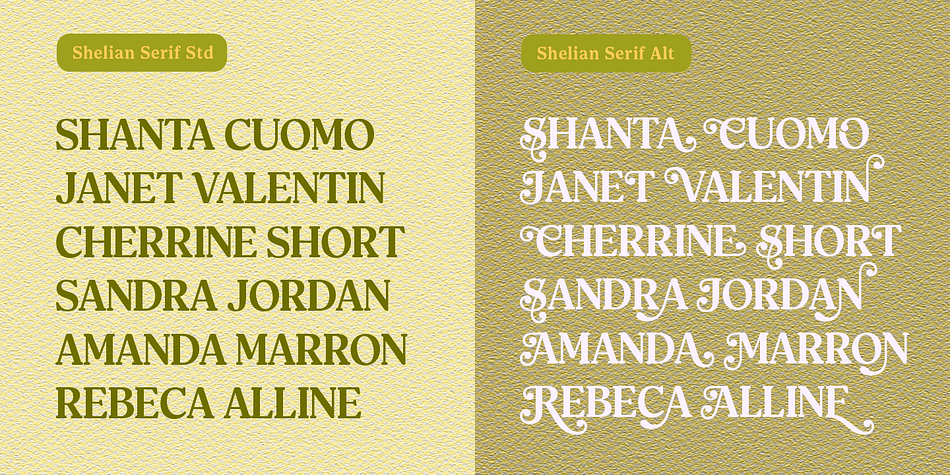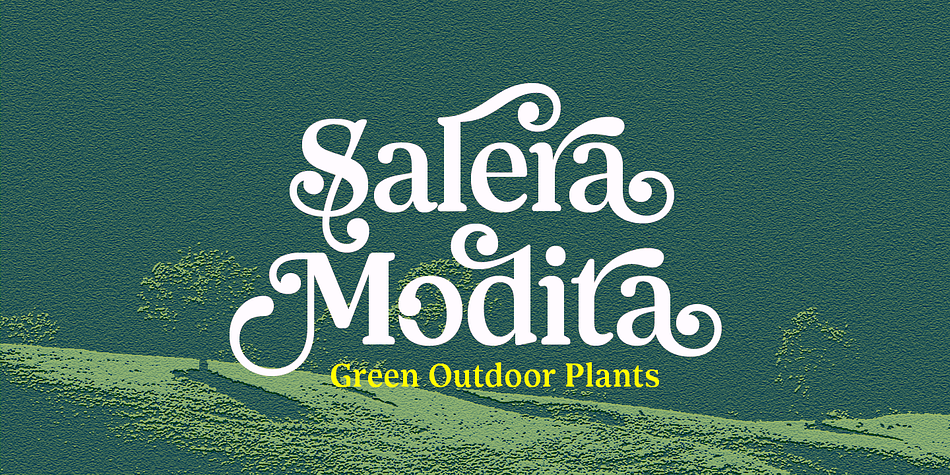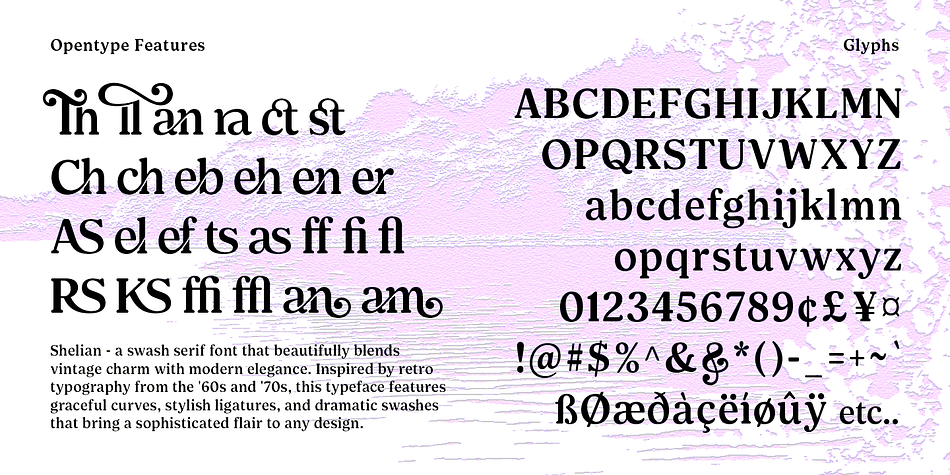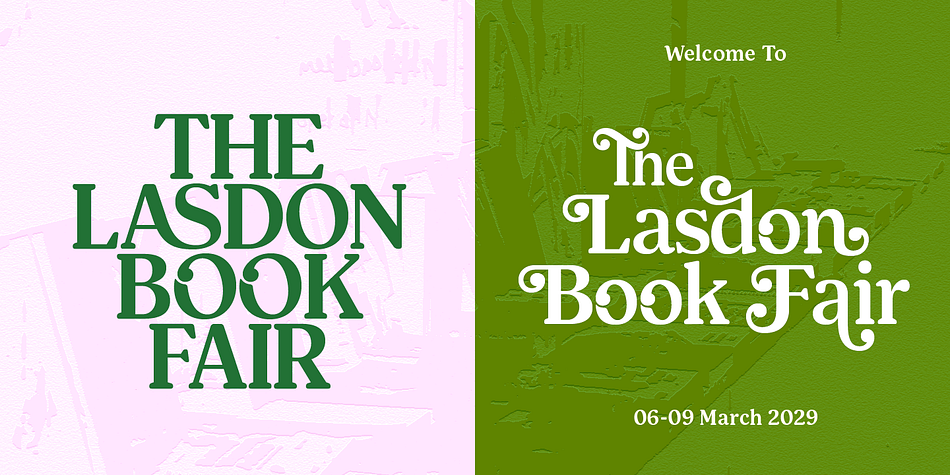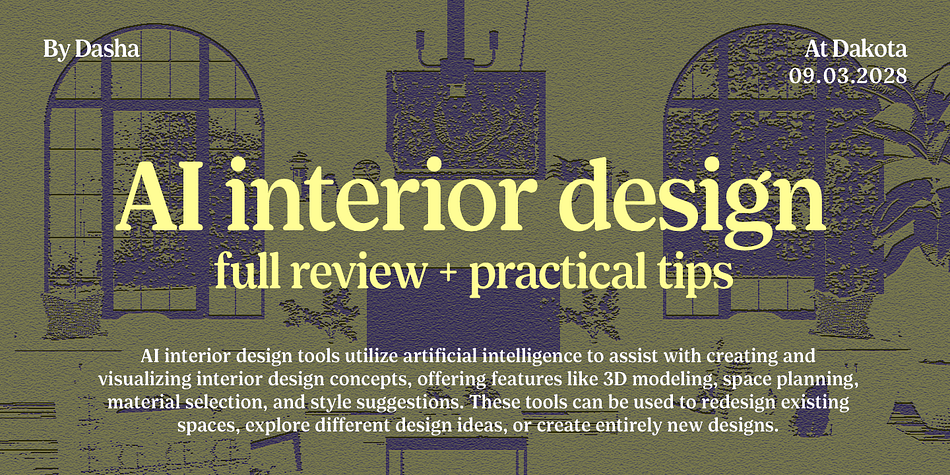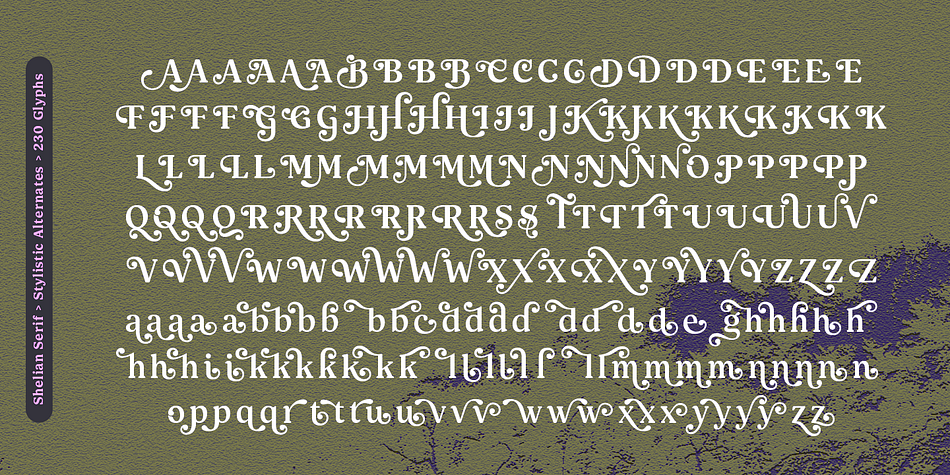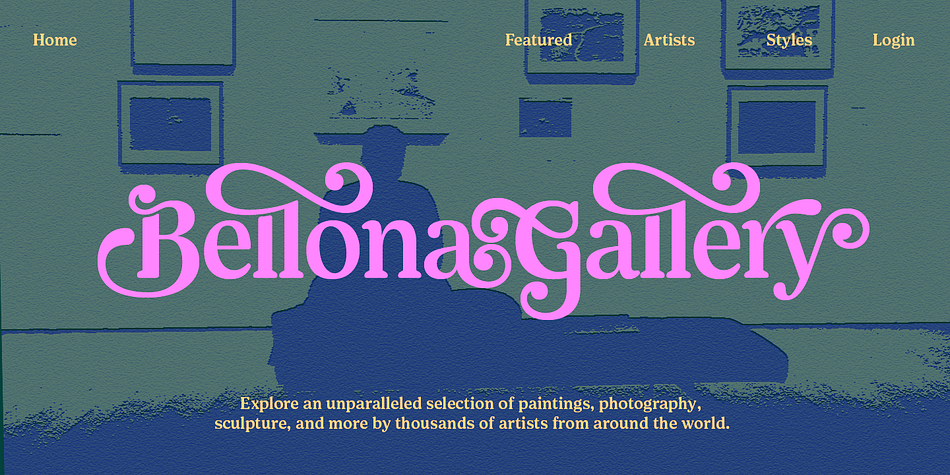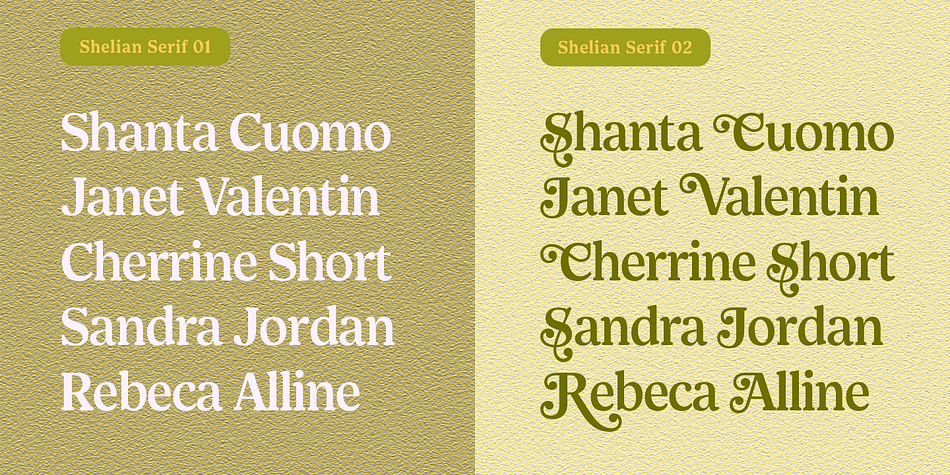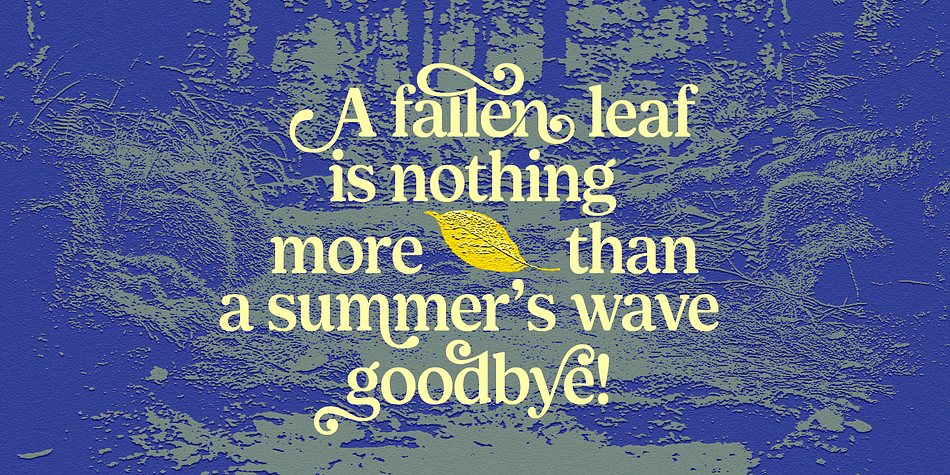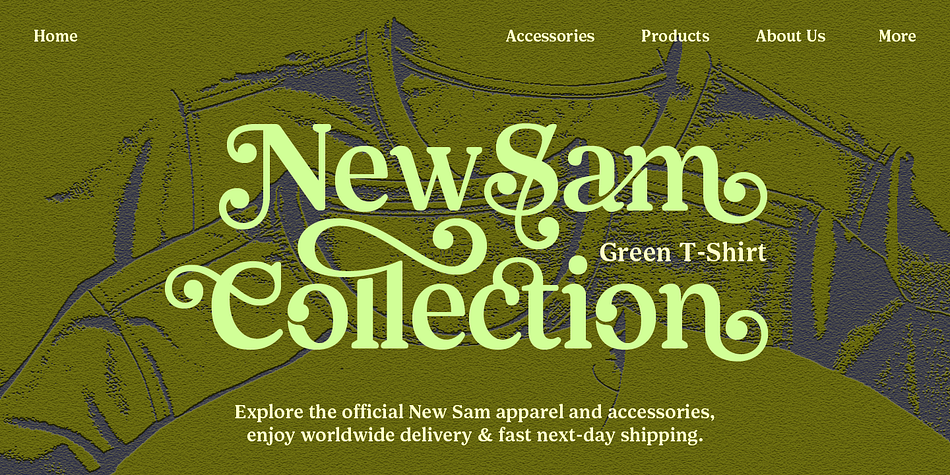
Shelian
Shelian is a serif font family. This typeface has two styles and was published by Seniors Studio.
Shelian is a striking swash serif font that merges vintage charm with modern elegance. Inspired by the expressive typography of the ‘60s and ‘70s, Shelian captivates with its elegant curves, decorative swashes, and refined ligatures bringing a touch of retro glamour to contemporary design. Available in two style fonts with over 555 glyphs and 230+ alternates, including multilingual support and full PUA encoding, Shelian offers creative flexibility for every typographic need. Its rich OpenType features such as Stylistic Alternates, Discretionary Ligatures, Swash, and Standard Ligatures allow for seamless customization and beautifully fluid letterforms. Whether you’re crafting a luxurious logo, romantic wedding invitation, eye-catching packaging, or a stylish editorial spread, Shelian adds both polish and personality. Its contrast strokes and vintage-inspired flair make it the perfect typeface for projects that call for elegance, nostalgia, and a modern edge.